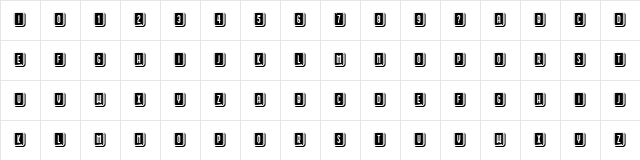
Schwarzenberg Capitals Negative Regular
Design Context for Schwarzenberg Capitals Negative Typeface
Schwarzenberg Capitals Negative is a composed and adaptable typeface that performs quietly and consistently across a wide range of design contexts.